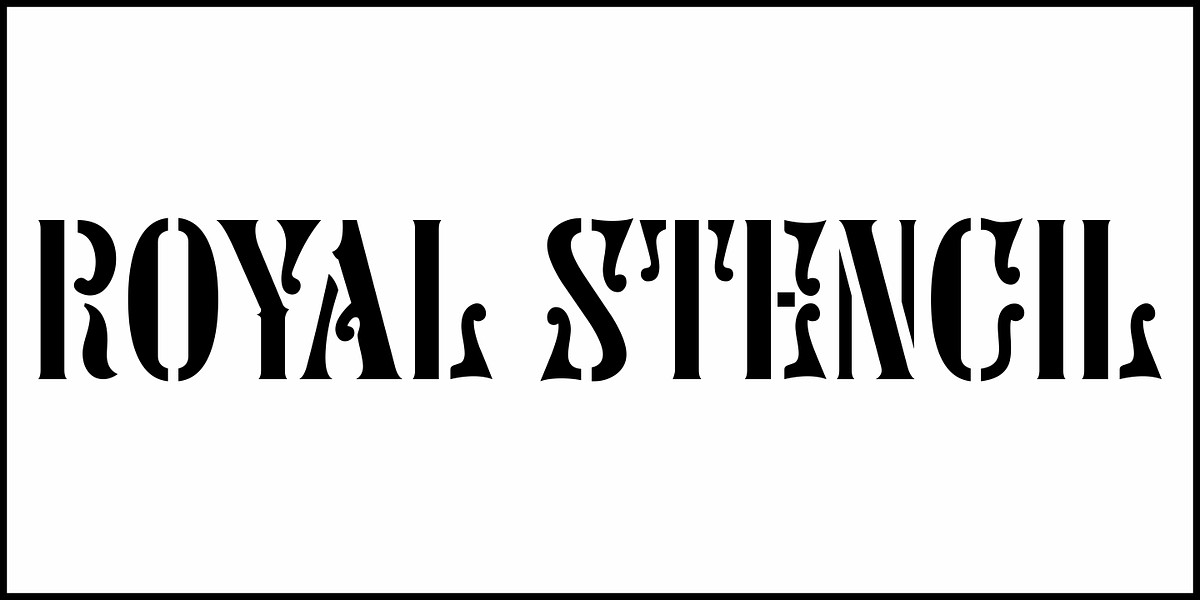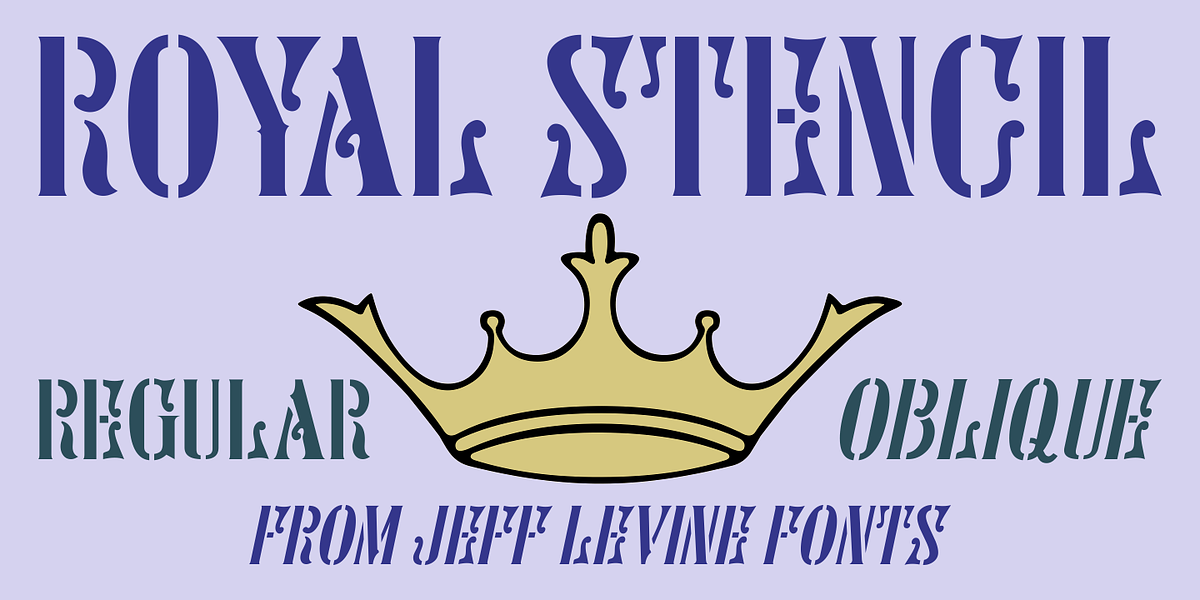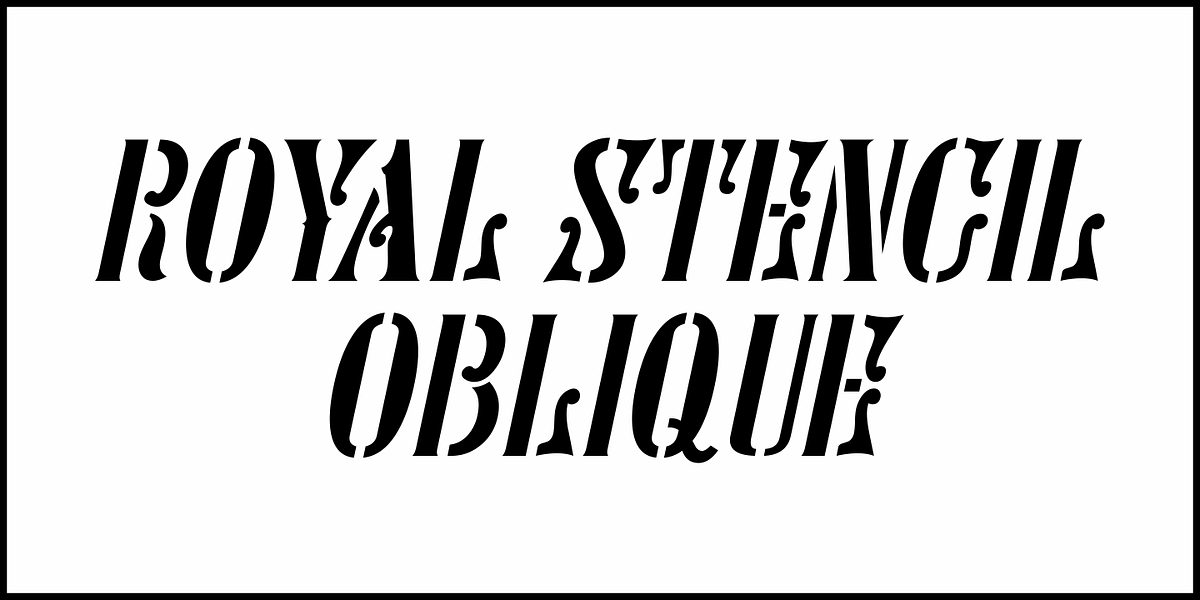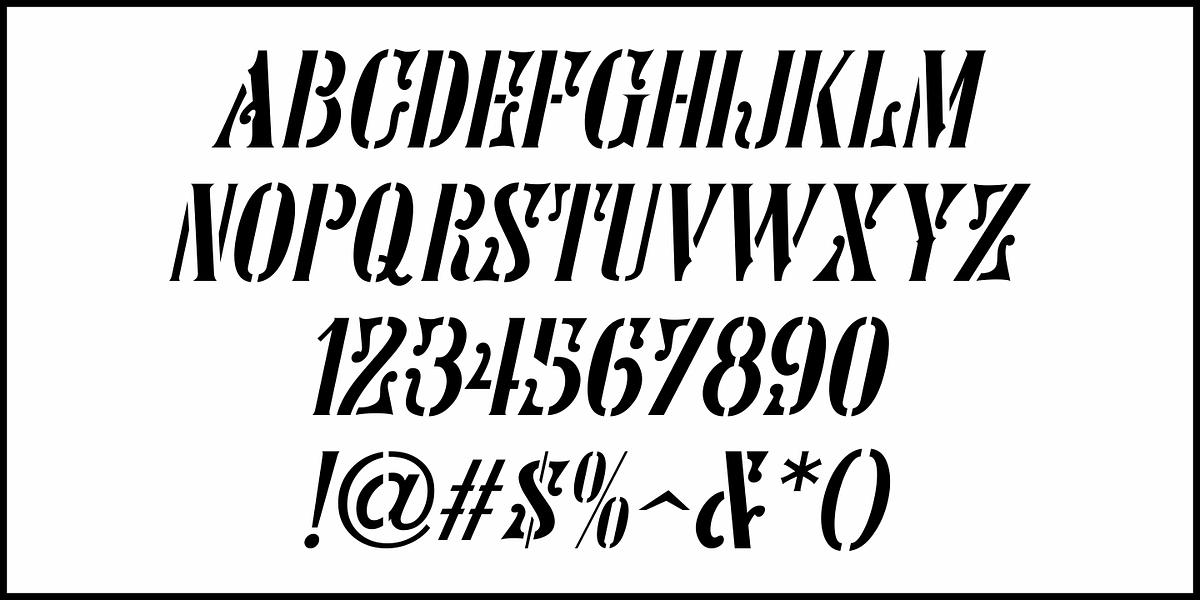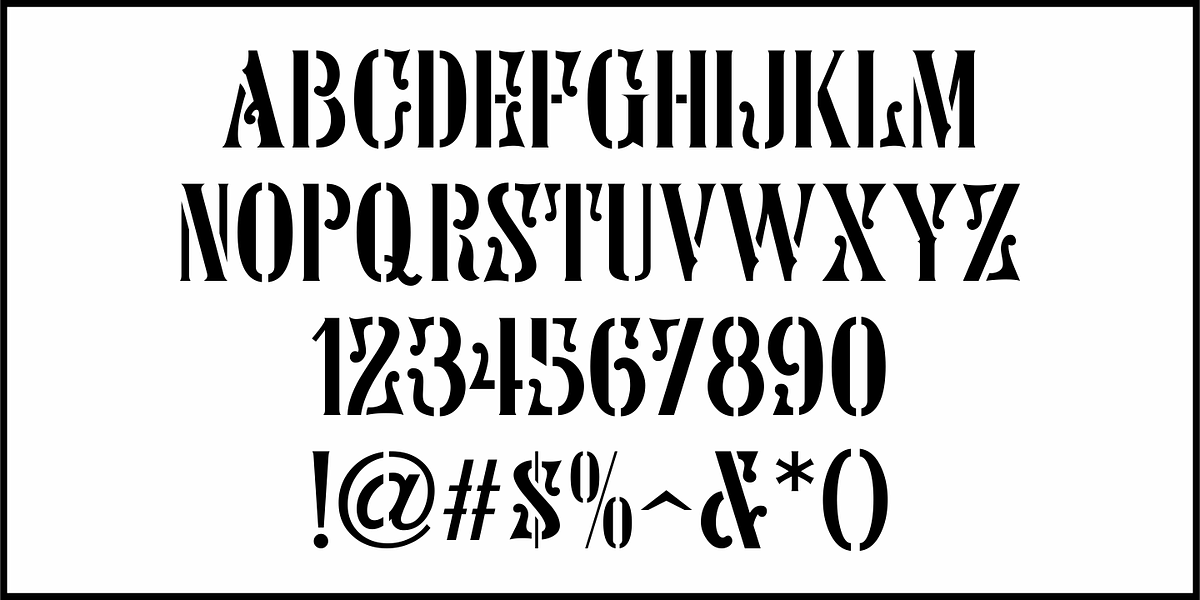
Royal Stencil JNL
An image spotted on the internet of a brass shipping stencil for the Royal Quality Brand (for the John H. Fitch Company of Youngstown, Ohio – a coffee and spice merchant).
The lettering style for “Royal Quality” was a hand-cut, condensed, slightly flared sans serif with various character flourishes, giving the letters a stylish, somewhat regal look.
Expanding on this idea, a full character set was developed and redrawn digitally as Royal Stencil JNL, which is available in both regular and oblique versions.